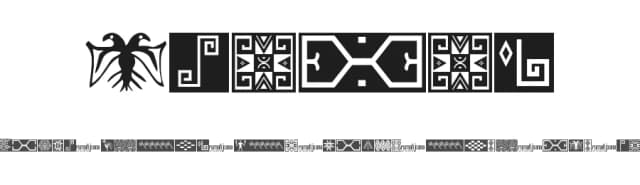
About Papan Kita Font
Papan Kita is a dingbat font designed by Didik Pratikno. It includes 57 glyphs, a regular weight, TTF (TrueType) format, and 89 languages. Papan Kita is free to download; check the license details on this page before commercial use. Dingbat fonts like Papan Kita work best for icons, ornaments, bullet points, and decorative accents.
Papan Kita Font is a versatile dingbats font that works for both headings and body text. Pair it with a contrasting sans-serif or serif font to add visual interest and a clear distinction between titles and body copy.
Papan Kita Font
Papan Kita Font is a dingbats typeface by Didik Pratikno, ideal for logos, invitations, branding, and creative projects.